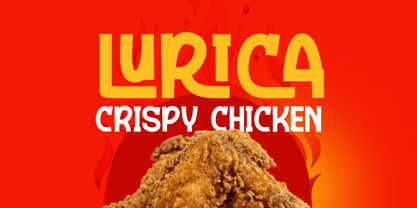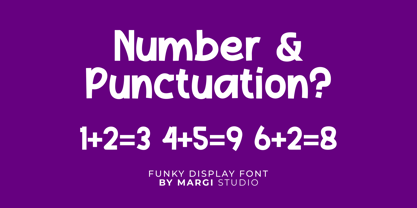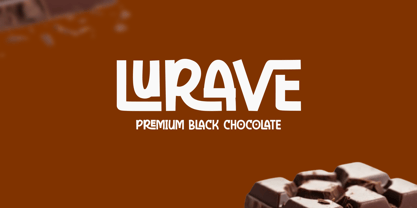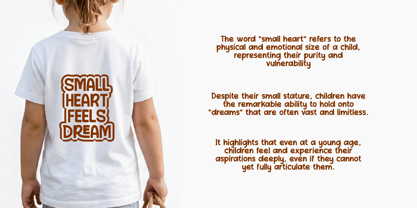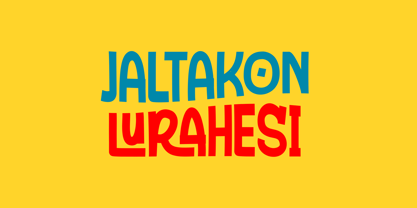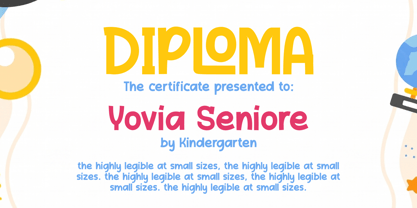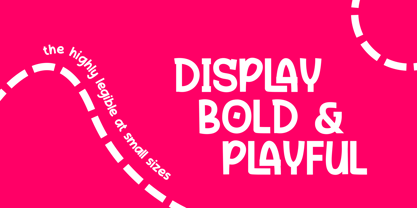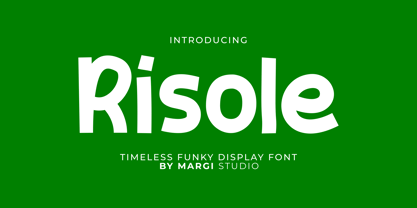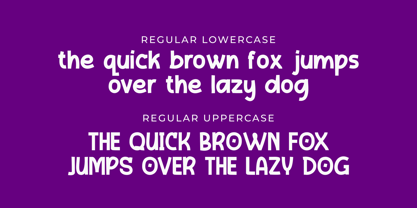
Risole
Risole: A Timeless Funky Display Font
Meet Risole, a timeless funky display font crafted by Margi Studio. Designed to be both bold and playful, this typeface brings an energetic, quirky, and approachable vibe to any creative project. Whether you are designing for a fun brand or a children's product, Risole delivers unmatched character while ensuring your message is clear, as it remains highly legible even at small sizes.
Key Features
• Includes a full set of regular uppercase and lowercase characters with a bouncy, unique rhythm.
• Comes fully equipped with numbers and essential punctuation for versatile typing.
• Maintains excellent readability, making it highly legible at small sizes.
Perfect For Any Playful Project
Thanks to its incredible versatility, this timeless funky display font is the perfect choice for a wide variety of design needs:
• Food & Beverage Branding: Grab attention with mouth-watering graphics, from spicy crispy chicken promotions to premium black chocolate packaging.
• Kids & Educational Materials: Bring joy to children's designs, such as kindergarten diplomas and certificates.
• Apparel & Merchandise: Create adorable and inspiring kids' t-shirts or clothing graphics.
• Vibrant Typographic Displays: Build colorful, eye-catching headers and playful text compositions.